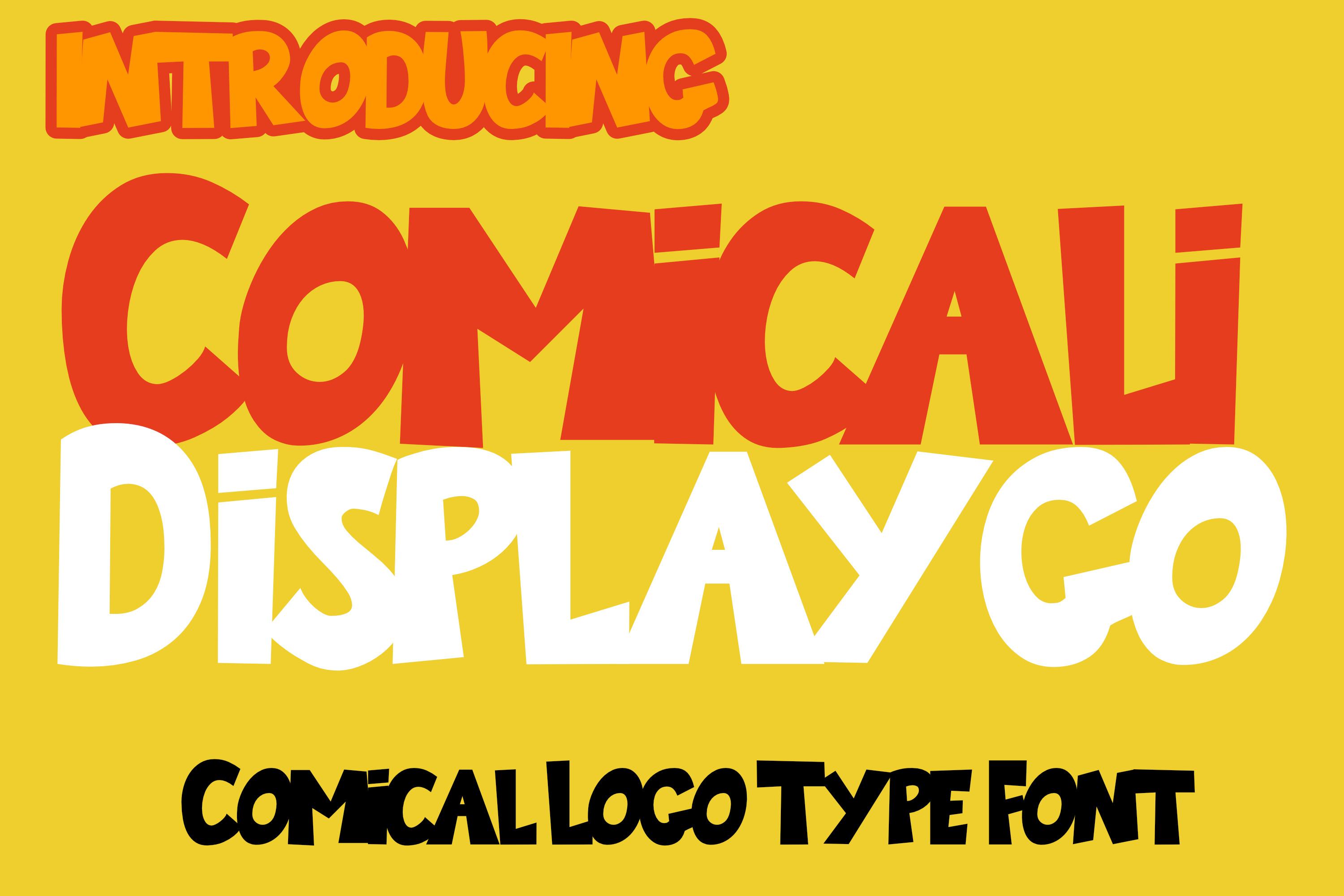
Comical Display Logo Type Font
Comicalidisplaygo - Logo Type Display is a font created to accommodate the needs of design creations that require dynamic letterforms that attract attention and are easy to read. This font can be used to design a logo, brand name, magazine title, book title and comic title and various other purposes. This font is suitable and can be used for writing in comic books, product names, store names and others. A logo that has an attractive font will of course be very effective. The Logo Type Display uses the Comicalidisplaygo font and has two styles, namely regular and regular rounded.